Bright Darling Font
Its name, ‘Bright Darling’, also hints at the pleasant, cheerful, and sophisticated character of the thicker sans-serif alongside the slim cursive script font. The sans 滑 exists modern
Anjel Font
This is simply a good, trendy new handwritten signature script with a quality look; it’s ideal for your current creative pursuit. Introducing Anjel Font. Mas Anis shared the
Zanitha Signature Font
It is a calligraphy font known as Zanitha Signature, which has a handwriting style added to the appearance. It was amazing to note that it does not have
Bismika Font
Bismika is great and looks classy; it is indeed a great display of fine art of colorful calligraphy. This font reflects elegance with certain curves, thin lines, and
Sonthayu Font
Sonthayu is a very aesthetic form of writing on paper, it is a beautiful form of printing like writing. It looks like calligraphy, big and beautifully written letters
Historyca Antiques Font
The font that Historyca Antiques mimics is a clean handwritten style font that look stylish and full of character. Its delicate curvy lines, and classically inspired look, gives
Searches Font
Hello There! Introducing Searches Font. Handwritten font is available in 92 otf formats with messed up bold, lovely movements and 92 ligatures, numbers, punctuation, stylistic alternates for ligatures,
Melania Font
One that is drawn in the way natural Melania handwriting Font looks and provides the amorous touch that you have been craving for. The uneven, that is quite
Neraltin Mistery Font
As its name suggests the “Neraltin Mistery” is a handwriting script font, simple and beautiful in its elegance and with the added hint of mystery. Because of its
Starting Font
Starting is one more calligraphic typeface, which might rather bombastic look can depend on the context, and turned out quite attractive and modern in the sphere of script
Roasted Bailey Font
Roasted Bailey is a beautiful calligraphy font with some perfect detailing to turn to a modern favorite typeface. It retains the sense of classy calligraphy, but it doesn’t
Betta Peach Font
It’s perfect for Betta Peach logos Font. branding projects, homeware designs, product packaging, and anything related to mugs, quotes, posters, shopping bags, t-shirts, book covers, name cards, invitation
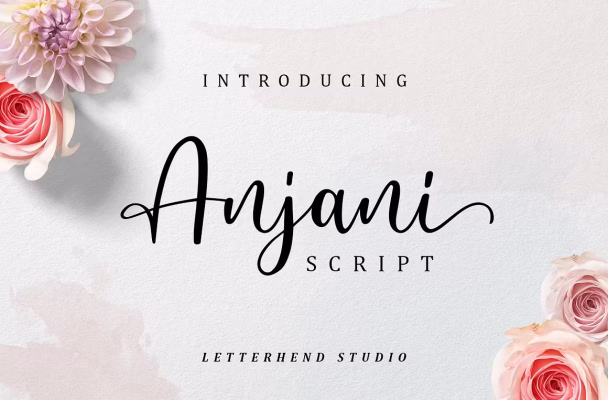
Anjani Font
Introducing Anjani, a modern calligraphy script that contains the romantic feeling that everyone wants. This typeface called ‘Natural hand writing ’ script is good for you, who looking
Peachy Flightone Font Duo
Peachy Flightone is a font duo script with swash. Peachy Flightone is perfect for product packaging, branding project, magazine, social media, weddings, or just used to express words
Quality Lettering Font
Quality Lettering exudes elegance and sophistication with its graceful strokes and exquisite curves. This handwritten script font combines style and beauty, perfect for adding a touch of class
Ochitylla Font
Ochitylla Bold Typeface by Letterena is perfect for branding, logo designs, homeware packaging and cups; also suitable for bags, posters, books t-shirts name cards for book covers etc.
Datians & Angela Font
Datians & Angela is a neat and adaptable handwritten monoline signature font. It is suitable for any projects such as: logos, branding projects, label, photography, watermark, special events,
Blankspot Font
Blankspot is a beautiful and aesthetic handwritten script font. It will look beautiful on all your designs, wedding invitations, branding materials, social media posts, business cards, and quotes.
Melody Font
Melody is an elegant and delicate handwritten typeface. This is perfect for your various design needs, such as logos and branding, social media posts, advertisements, business cards, wedding
Meetha Font
Meetha is a modern calligraphy based script in an italic and dancing style. Made to gently glide across compositions, Meetha is a modern, sweet, stylish and firm font.
Salute Riches Font
Salute Riches is a stunning handwritten signature font, perfect for giving your designs an elegant and genuine feel. This font looks stunning in editorials and fashion spreads, but